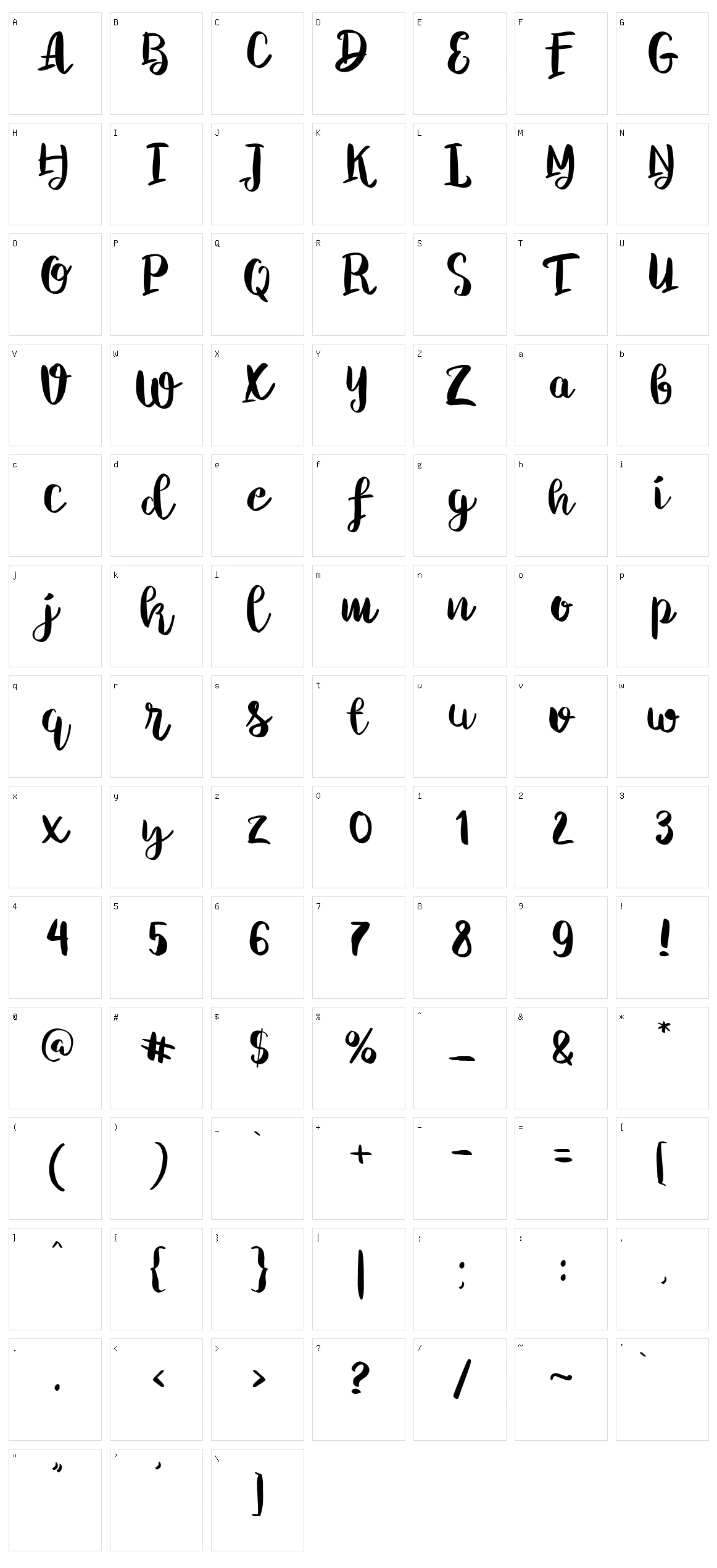
The free font Chelsea is carefully designed by Debut Studio, showcasing a thoughtful balance of creativity and usability and falls under the Script font style. When you download the ZIP file, it contains only 47.39 KB of font files, making it lightweight and quick to download. Please review the license details below to understand permitted usage and distribution rights. If license information is not available, we recommend using this font for personal projects only or contacting the author directly for commercial usage permissions.